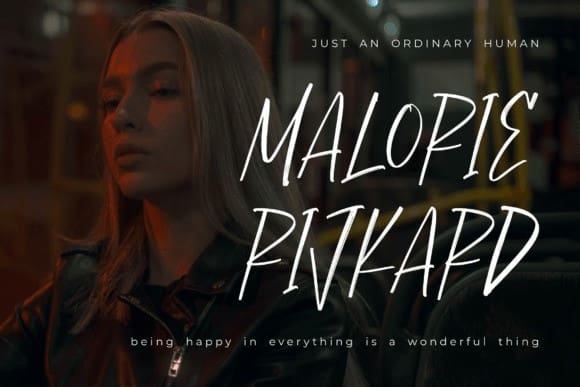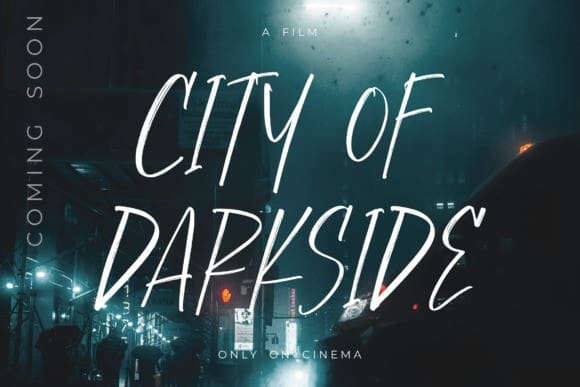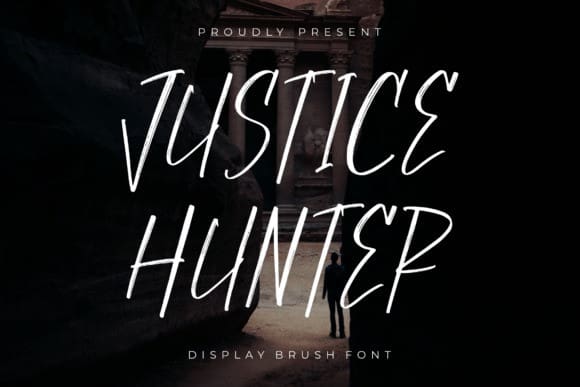
Justice Hunter Font
Justice Hunter Font is a brush script font, from Perspectype Studio, suitable for any project such as logos, branding, homeware designs, product packaging, mugs, quotes, posters, shopping bags, t-shirts, book covers, name card, invitation cards, greeting cards, label, photography, watermark, special events, and all your other lovely projects that need a beautiful script taste.